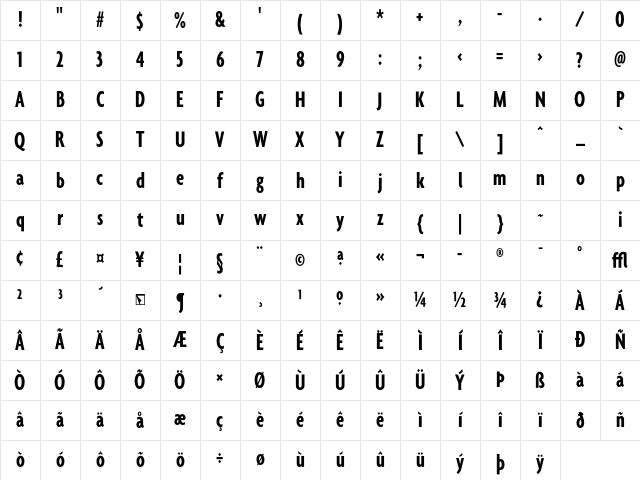
Agenda BoldExtraCondensed
Foundry: Greg Thompson. Agenda is a Trademark of Greg Thompson. Produced by The Font Bureau, Inc
Design Context for Agenda
Agenda is a composed and adaptable typeface that performs quietly and consistently across a wide range of design contexts. Its bold stroke weight gives it real presence on the page. Its narrow stance lets it pack a punch even in space-constrained designs.
Who designed the Agenda BoldExtraCondensed font?
This font was published by Greg Thompson. Agenda is a Trademark of Greg Thompson. Produced by The Font Bureau, Inc. Check the technical specs section for copyright and designer details.